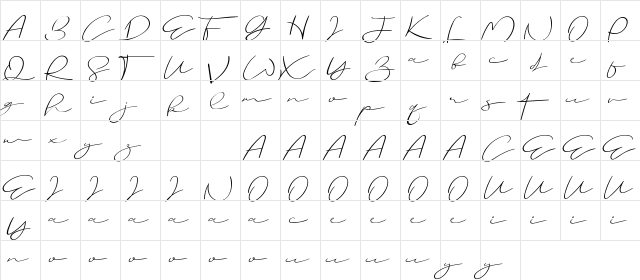
Hatching Love Demo Regular
| Foundry | Edric Studio |
| Designer | Fajar Saepul Rohman & Suci Anita |
Design Context for Hatching Love Demo Typeface
Hatching Love Demo is a composed and adaptable typeface that performs quietly and consistently across a wide range of design contexts.